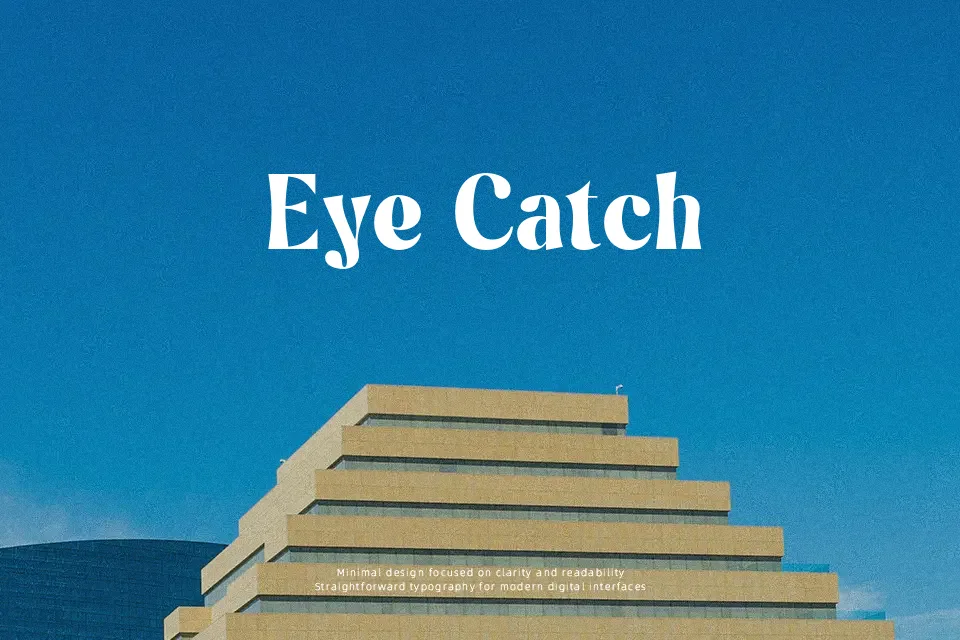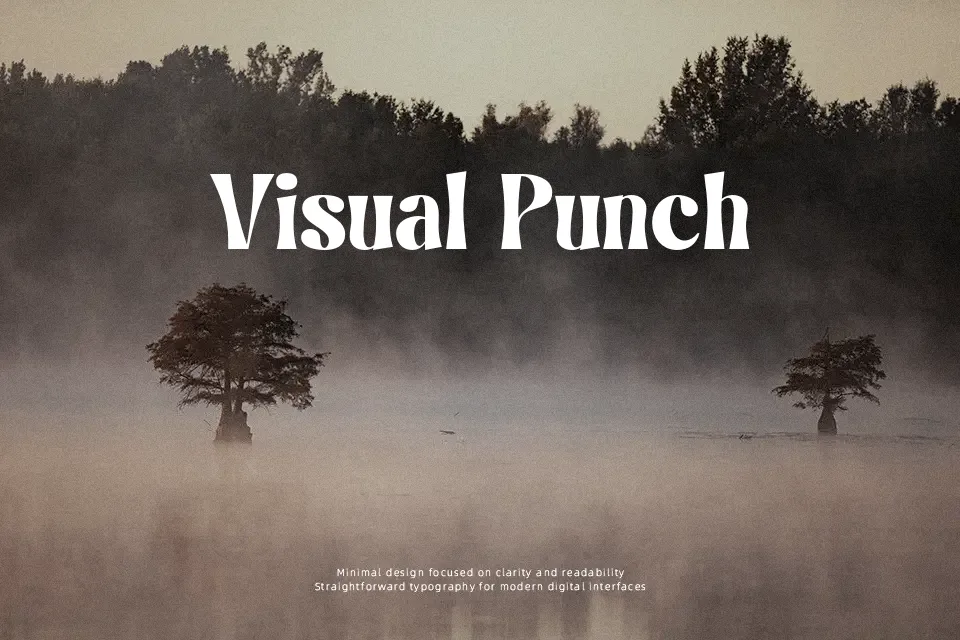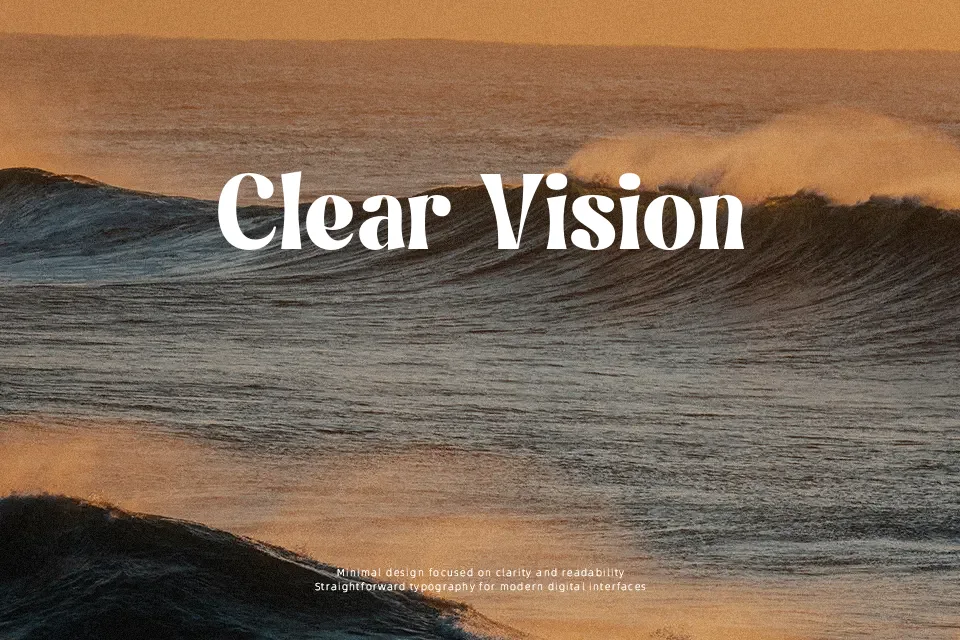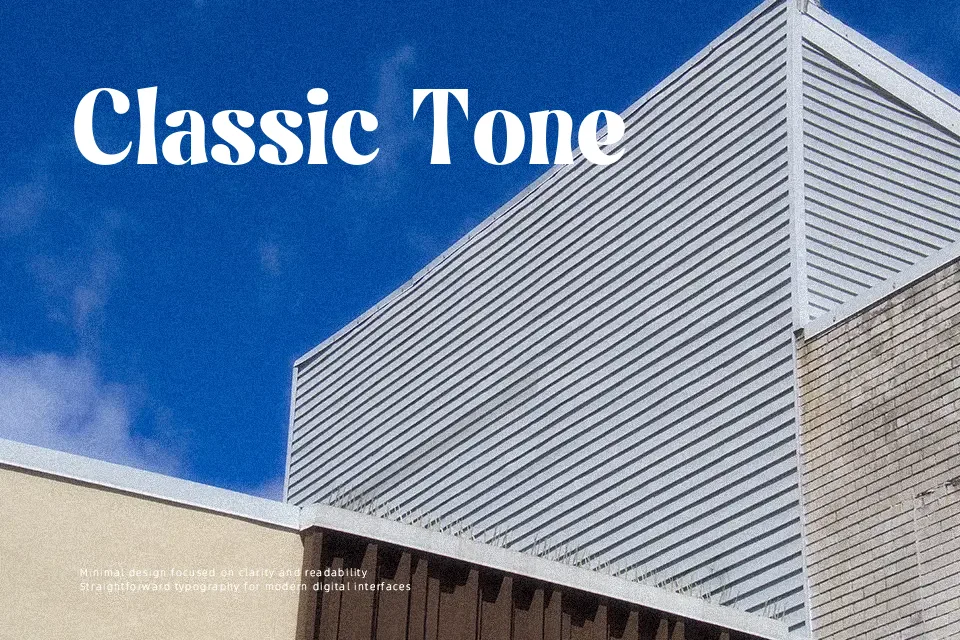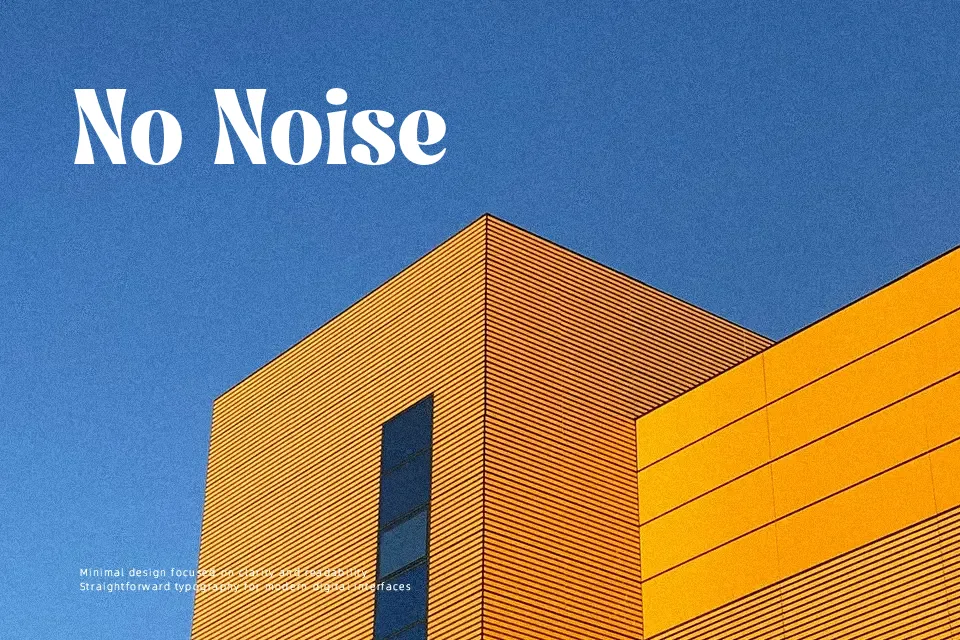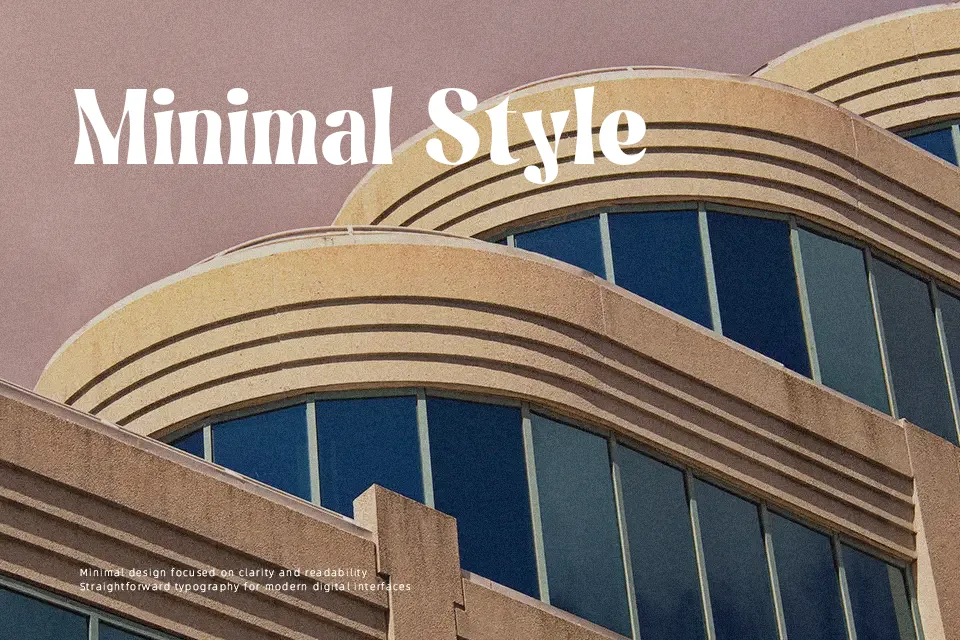
Askey Font
Askey leans hard into bold, high-contrast serifs that feel deliberately exaggerated — thick stems meet playful terminals in a way that reads more like attitude than refinement. The letterforms are chunky and expressive, giving headlines an unmistakable retro-funk energy without veering into pure nostalgia. It handles well on dark or textured backgrounds, where the thick strokes hold up visually. You’d reach for it on concert flyers, vinyl cover mockups, or a food brand that wants personality over polish. That said, the demo version covers basic glyphs only — accented characters and extended Unicode are absent, which rules it out for multilingual work. It also breaks down fast at small sizes; this is a headline-only typeface, and using it for subheadings or captions will likely disappoint.
Best For:- Music event posters and concert flyers
– Retro food or beverage brand packaging
– Album cover typography
– Social media header graphics with bold personality
Not Ideal For:- Body text or long-form reading
– Multilingual or accented character needs (demo glyph set is limited)
– Corporate or formal brand identities
– Small-size applications like captions or footnotes
Perfect for branding, music, and packaging, with a bold and display style.